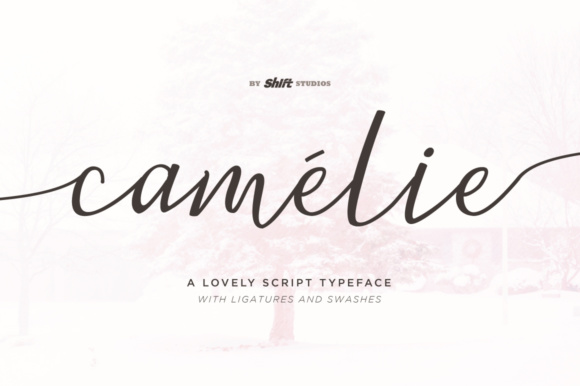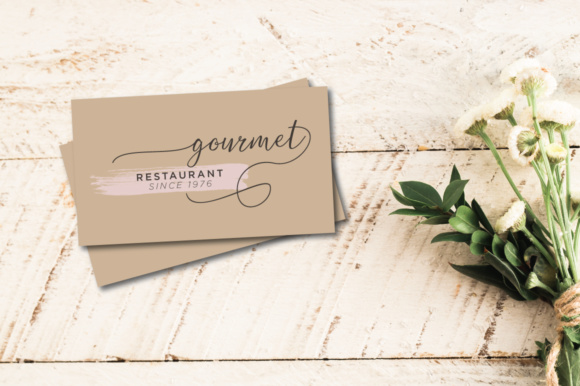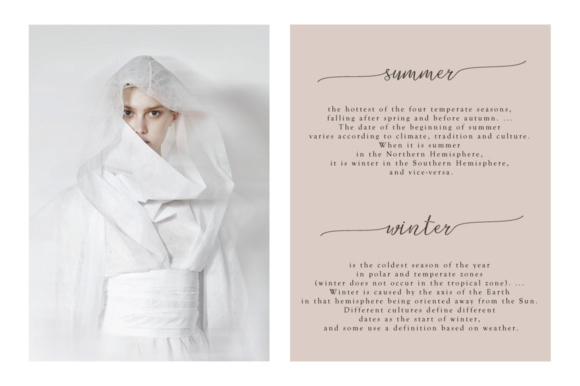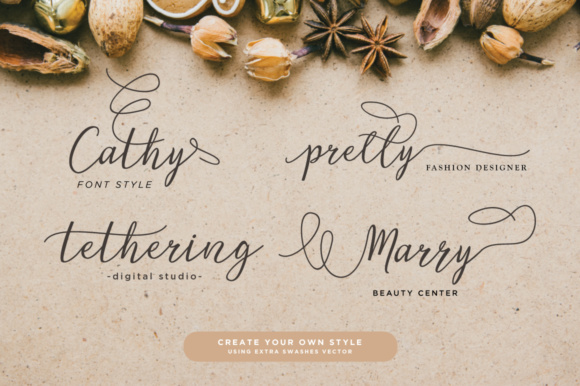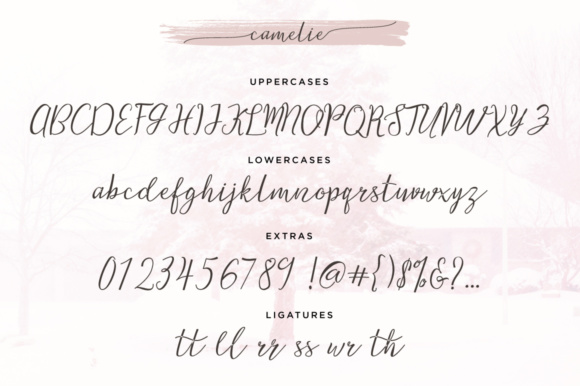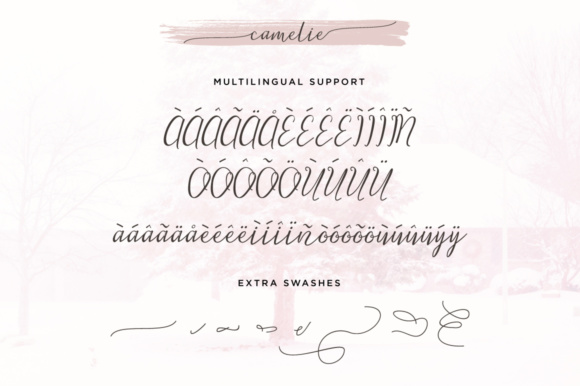
Camelie Font
About Camelie Font
Camelie is a bouncy, feminine script font. This font is a great display option, and as a handwritten font, looks extra special in all your special event designs.